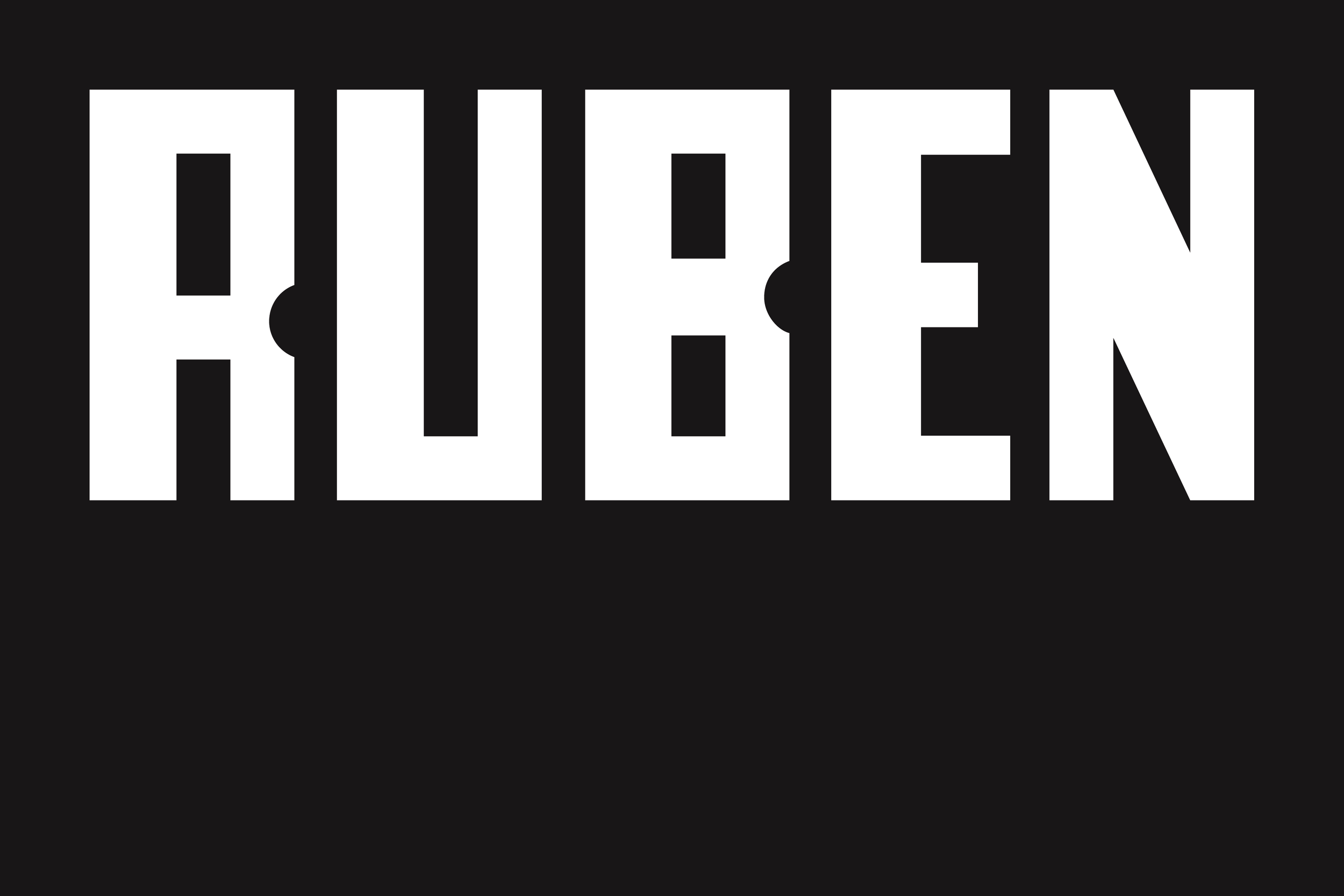
RUBEN is a font inspired by journalist Rubén Salazar and remnants of the 1970 National Chicano Moratorium.
The end of August in Los Angeles has historically been a time of sad recollections for Latinos, especially activists who remember a triumphant civil rights march that turned murderous.
On Aug. 29, 1970, some 25,000 activists gathered in East Los Angeles to take part in what was billed as the National Chicano Moratorium march, and protest against the Vietnam War.*
They were protesting the disproportionately large number of Latino soldiers who were being killed in Vietnam. It never occurred to any of them that one of three people who would be killed that day as a result of the march would be perhaps the most important Hispanic who would die in the age of civil rights protests—Rúben Salazar.
Rúben Salazar, a journalist and crusader for Latino rights — especially against law enforcement — was slain when Los Angeles Sheriff’s deputies fired a tear gas projectile that struck him in the head, killing him instantly. No one was ever arrested — then or since — in connection with Salazar’s violent death. *